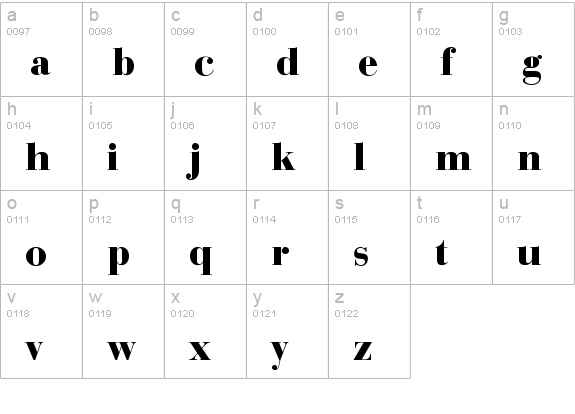
Bauer Bodoni Black is a maximum-weight, dramatic variant in the Bauer typeface family \xE2\x80\x94 well suited to maximum-impact headlines, posters, and packaging.
Bauer Bodoni Black font is a timeless and elegant typeface that exudes sophistication and refinement. Its bold and distinctive letterforms make a strong statement, perfect for headlines, logos, and branding materials. The sharp serifs and clean lines give this font a classic yet modern look that is sure to captivate any audience. And the best part? Bauer Bodoni Black font is available for free download at FontsMarket.com. This means you can easily access this high-quality font for your design projects without any cost. Don't miss out on the opportunity to elevate your designs with this stunning typeface. Download Bauer Bodoni Black font today and make a lasting impression with your work.